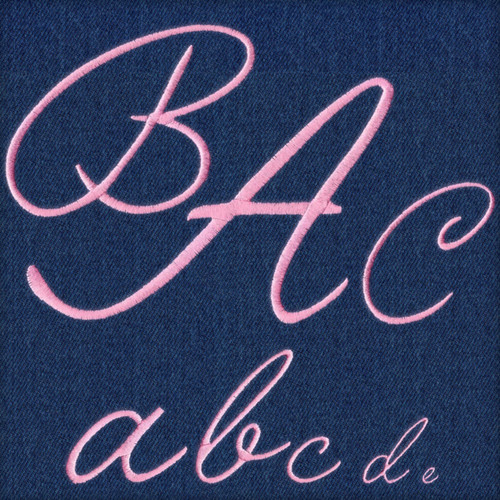
457 Exquisite Satin Font
Exquisite Satin Font comes in 1", 2", 3", 4" and 5" heights based on the capital "A". All sizes are included in the purchase price. All sizes are finished in standard Satin stitching. Includes uppercase letters, lowercase letters, numbers and four punctuation marks. Some characters in the 3" and 4" set exceed standard 4x4 hoop limitations; and some characters in the 5" set exceed standard 5x7 hoop limitations.